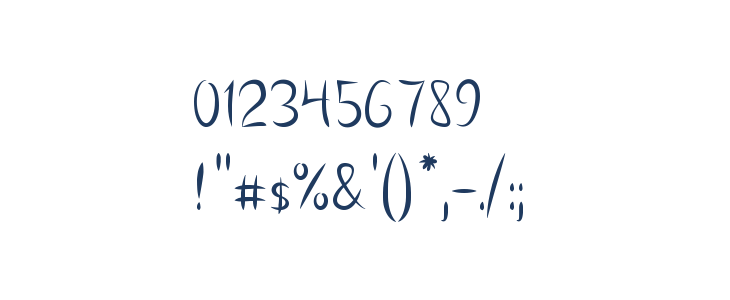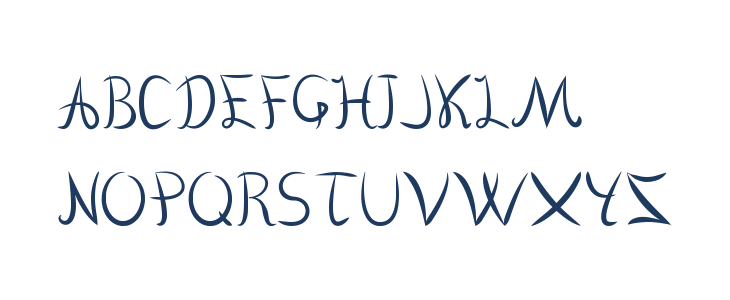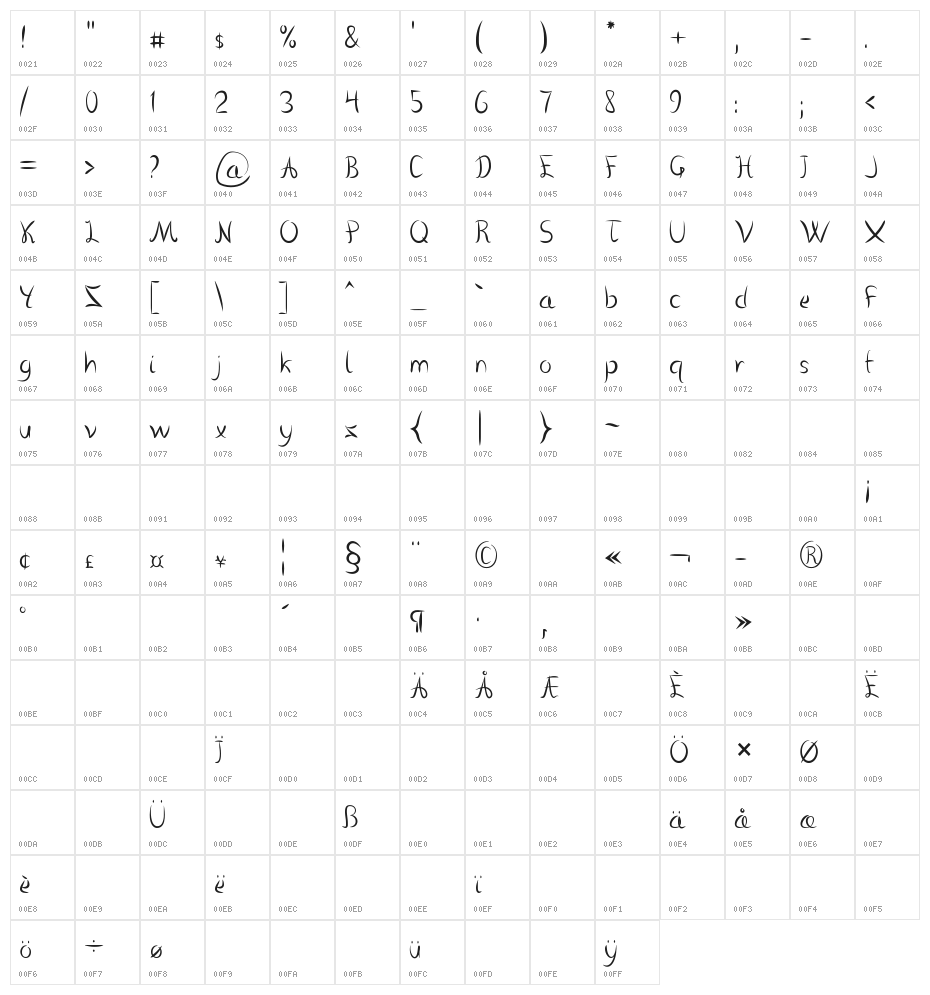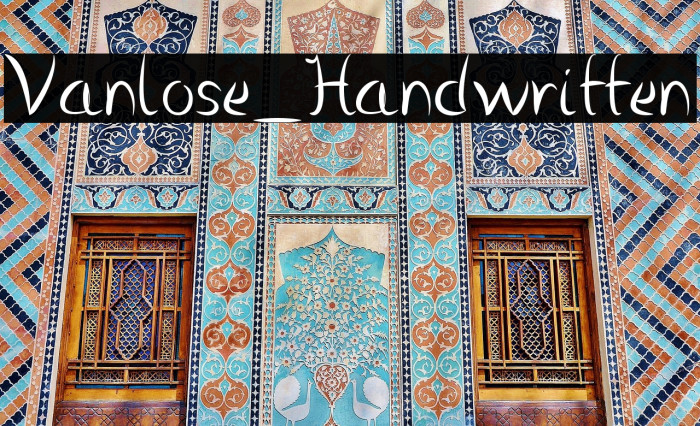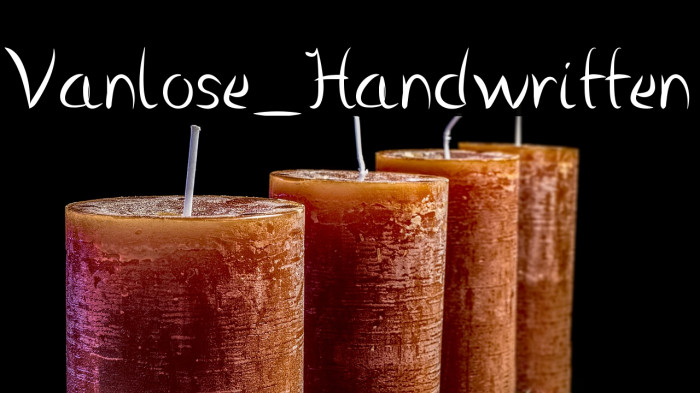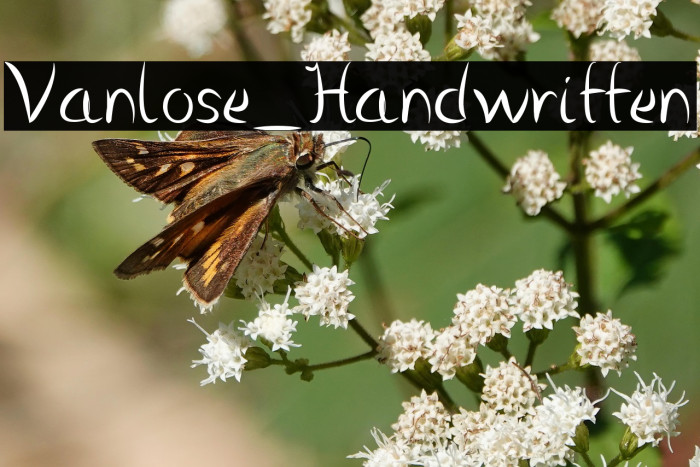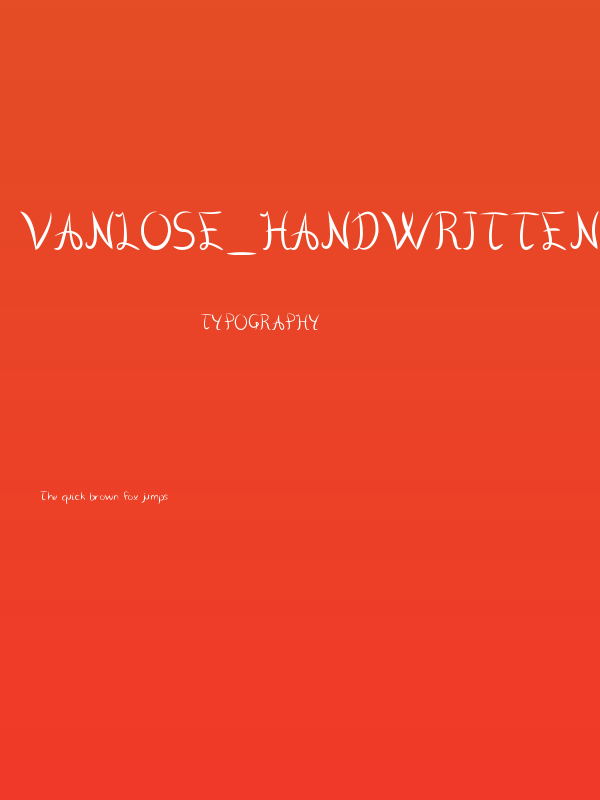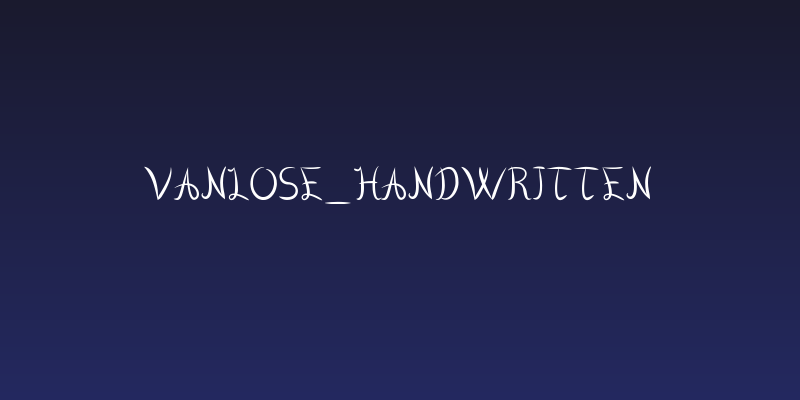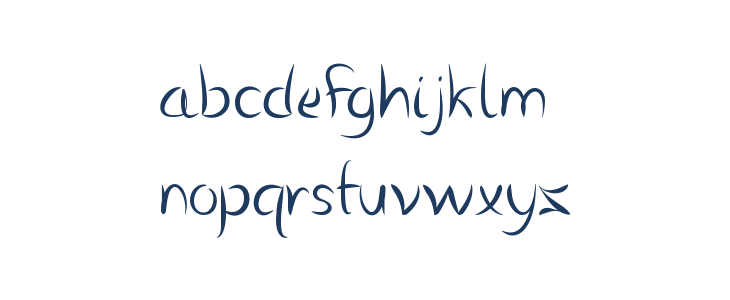
Vanlose_Handwritten Font
Vanlose_Handwritten Description
A playful handwritten font with flowing, irregular strokes and a casual, artistic feel. The characters have varying heights and widths, with some exaggerated curves and unique letterforms, giving it a whimsical and expressive appearance.
| Overall Style | Decorative, Artistic, Playful |
| Use Case | Logos, Headlines, Posters, Invitations |
| Proposed Projects | Greeting cards, invitations, posters, creative branding, children's books. |